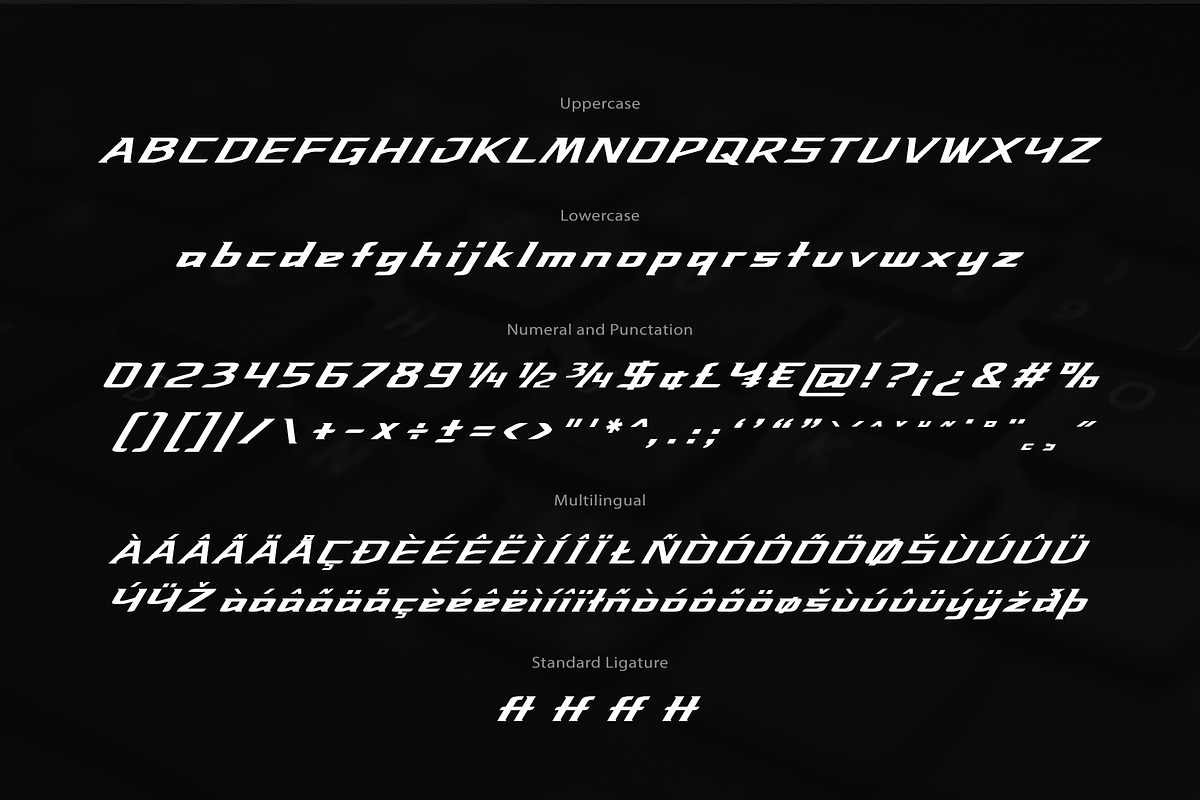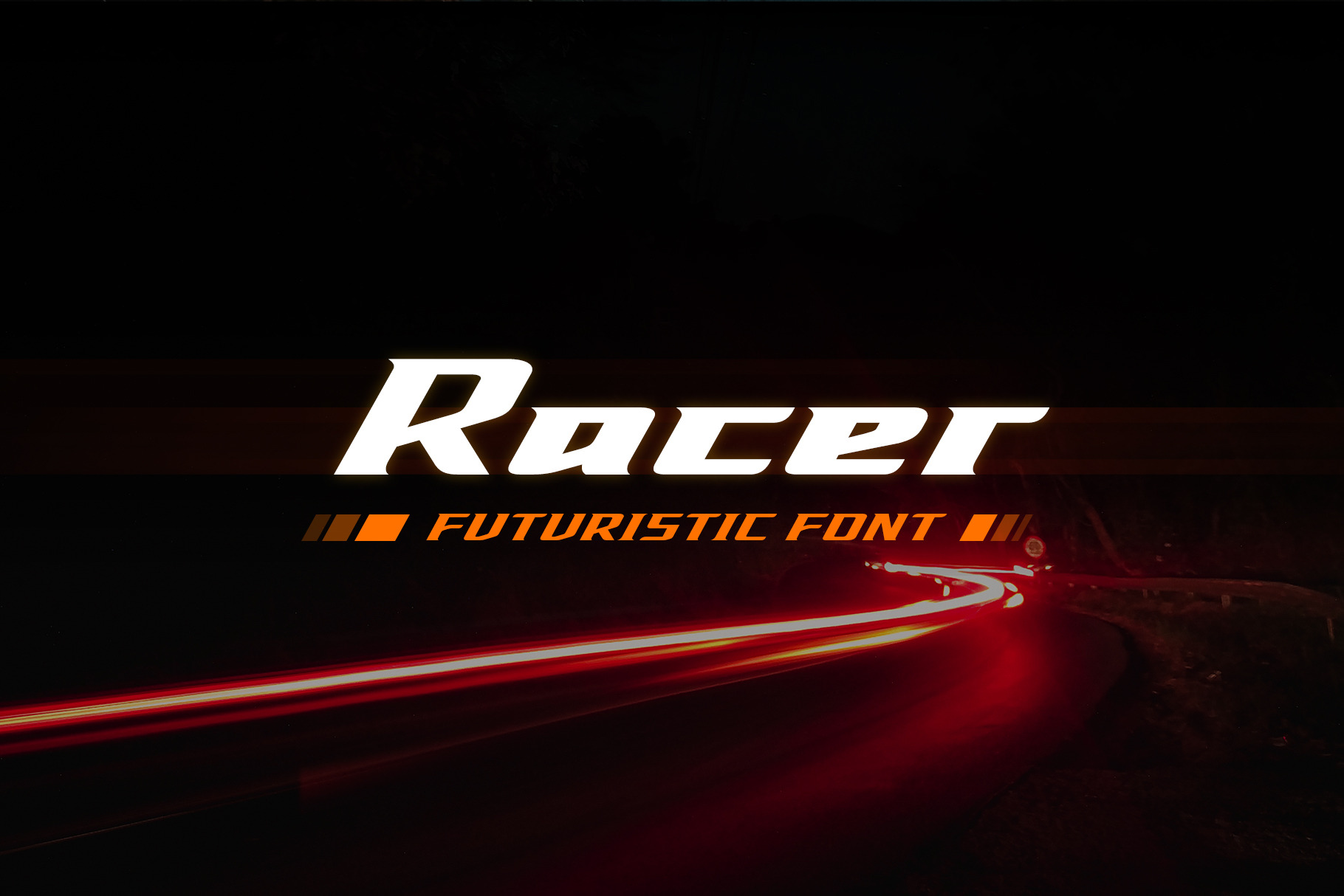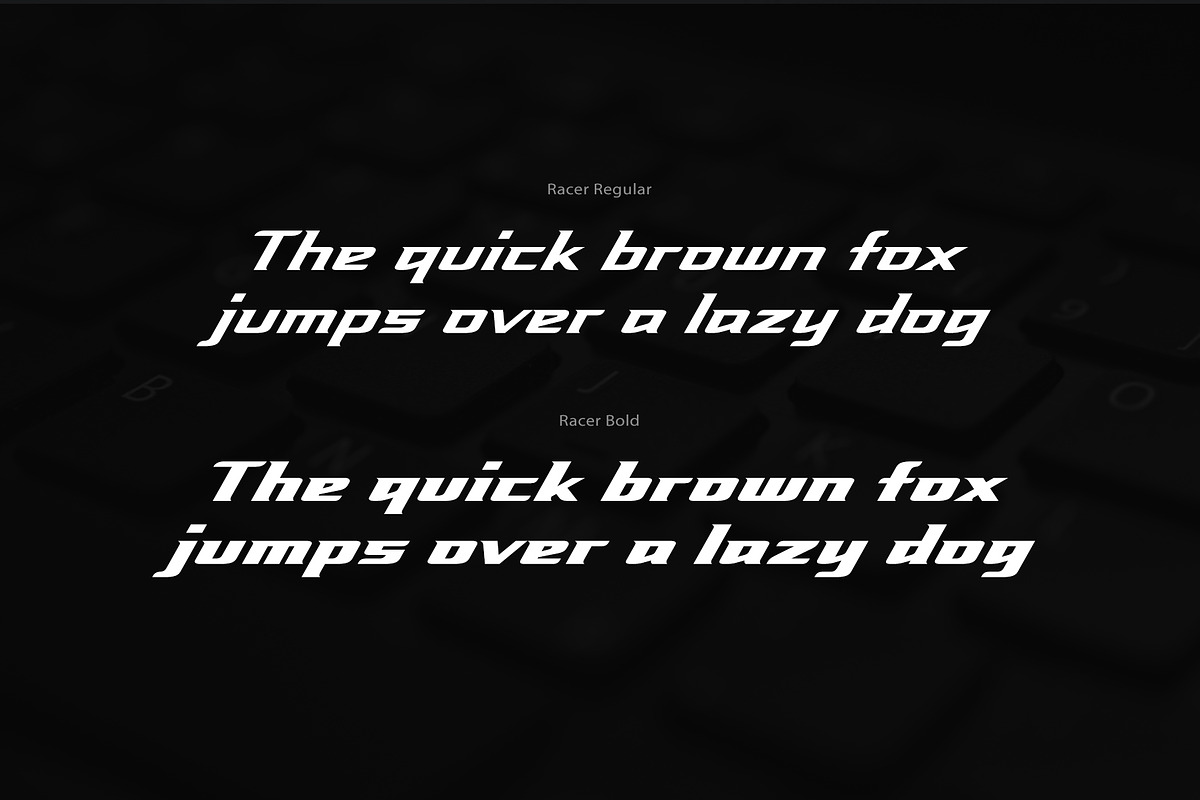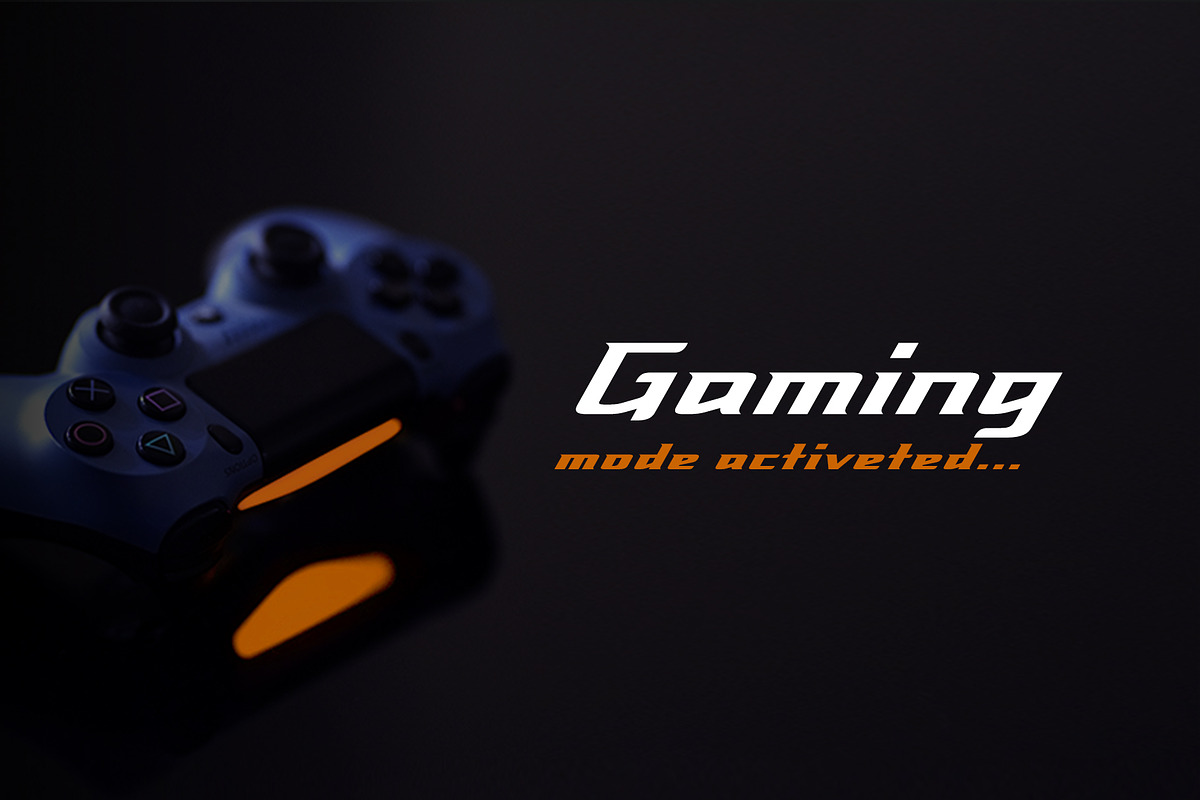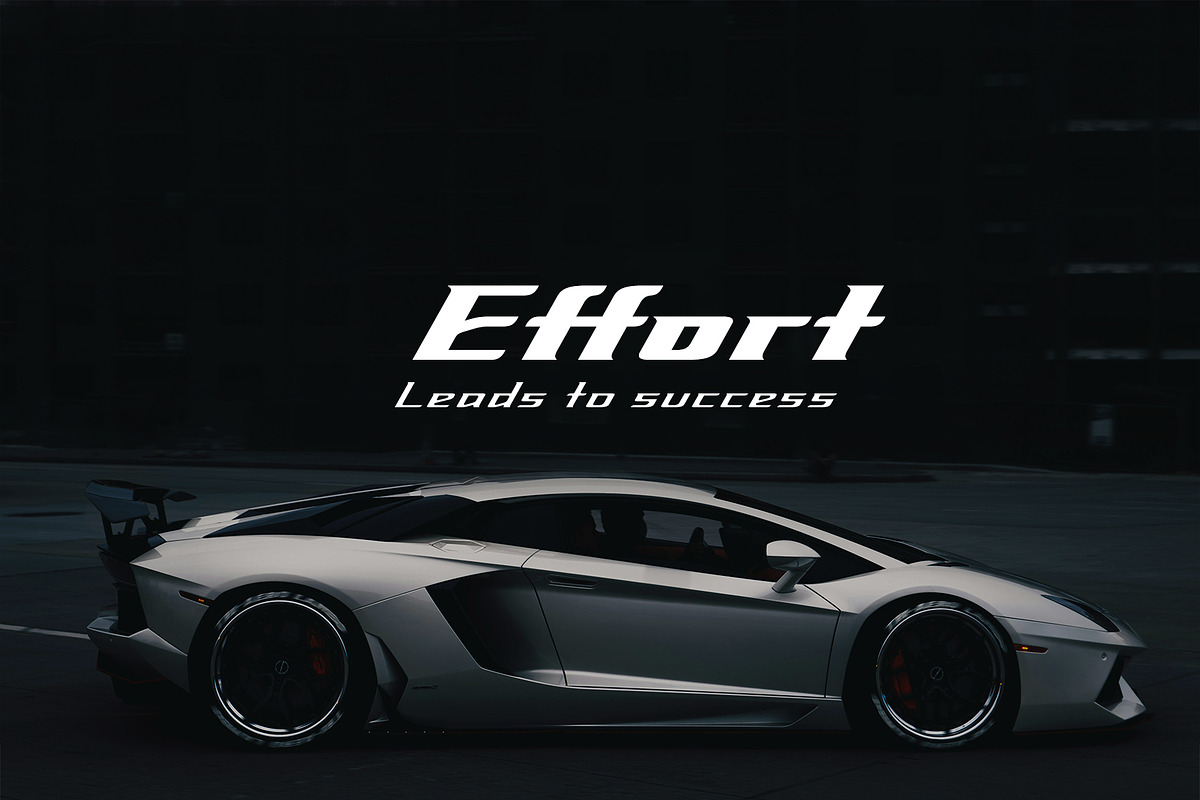
Racer Futuristic Font
‘Racer’ is a modern futuristic font set. Perfect for logo, tagline and long text. Suitable for e-sports, sci-fi project design. It’s a bold and clean designed font.
Features: Uppercase, Lowercase, Punctuation, Numeral, Ligature, Multilingual Character